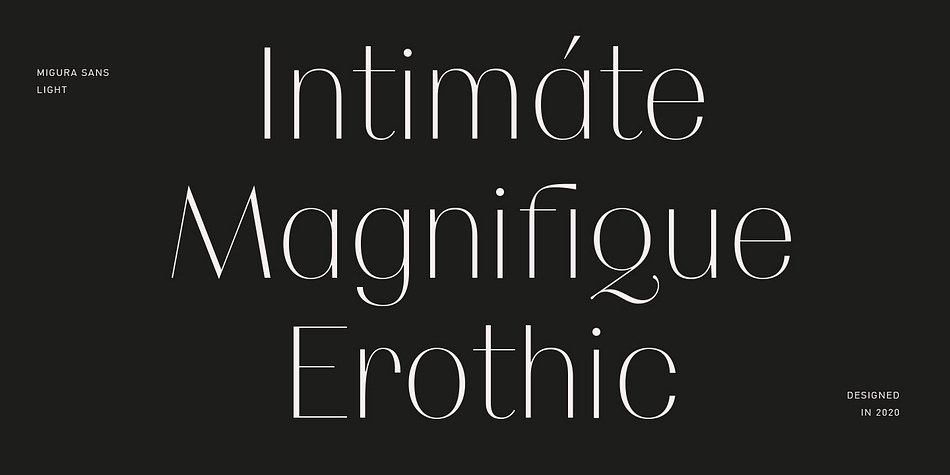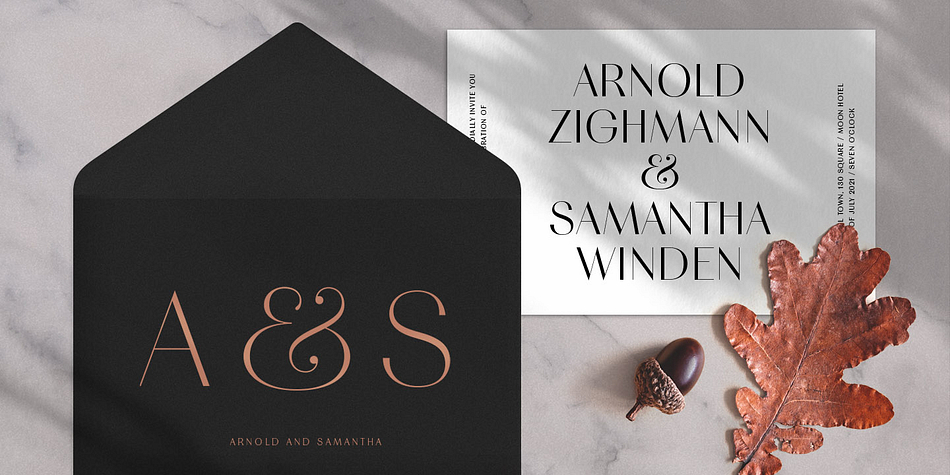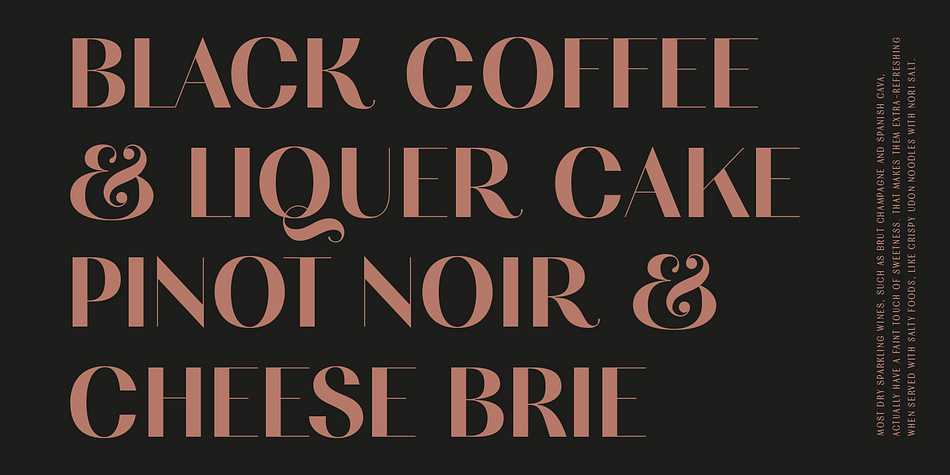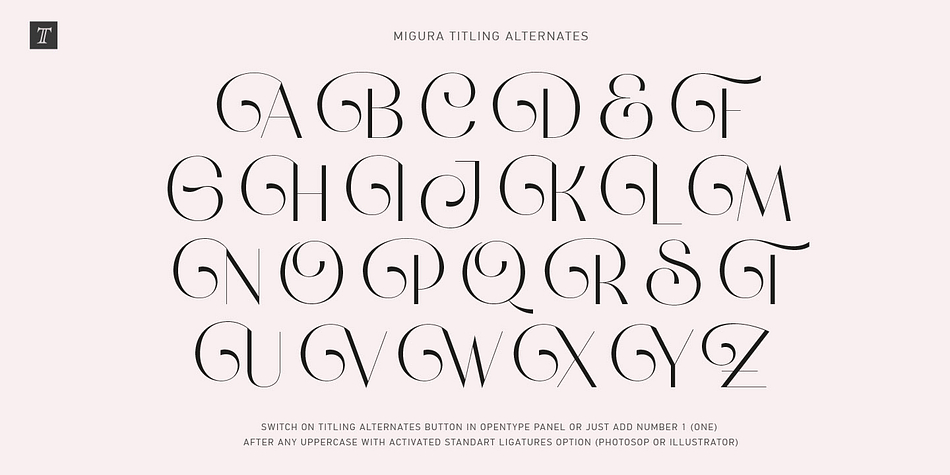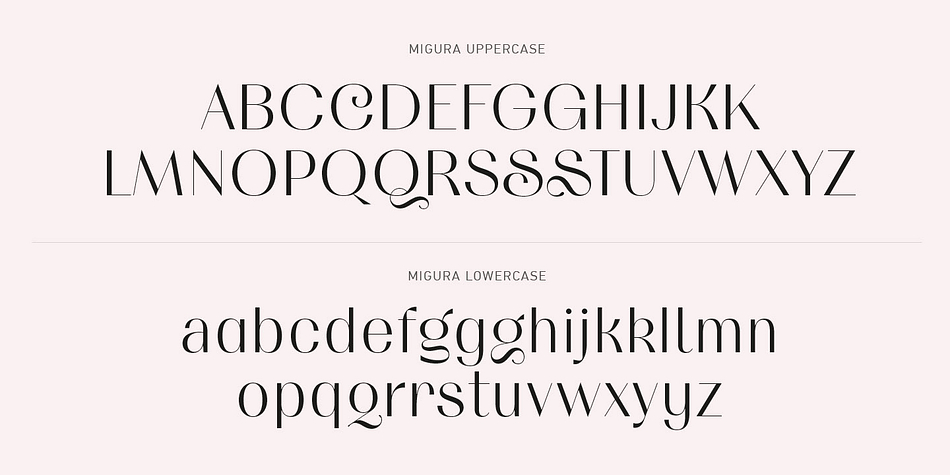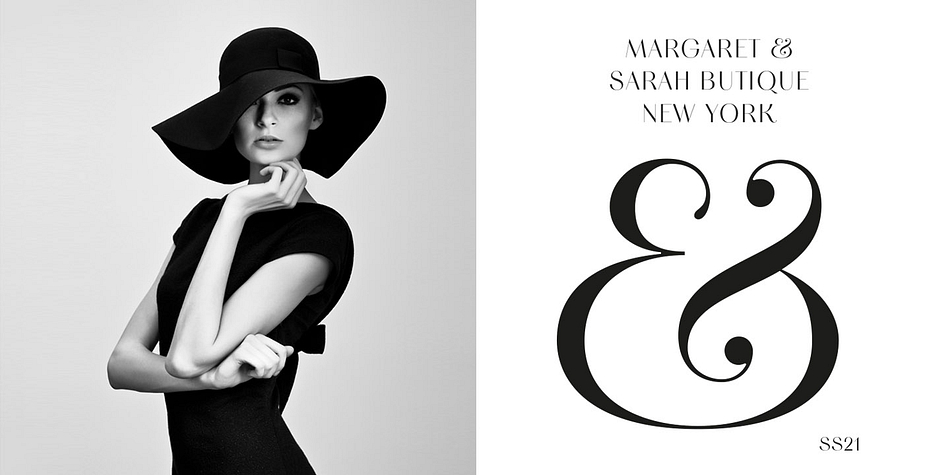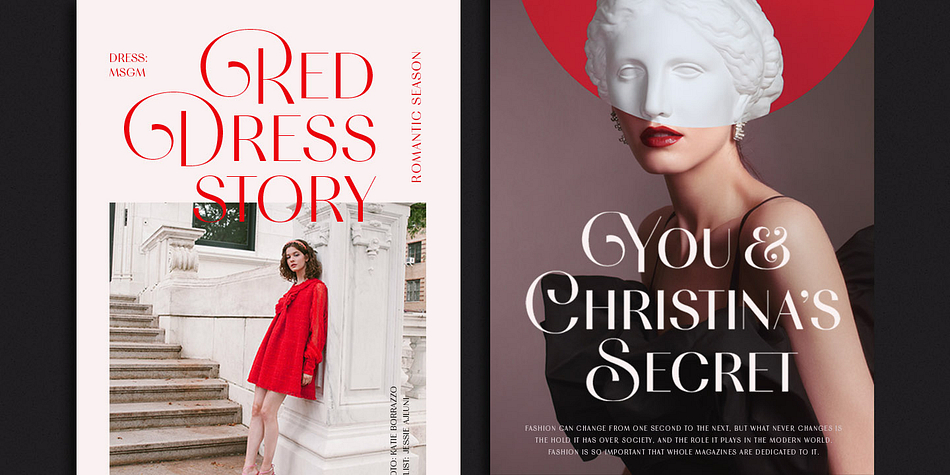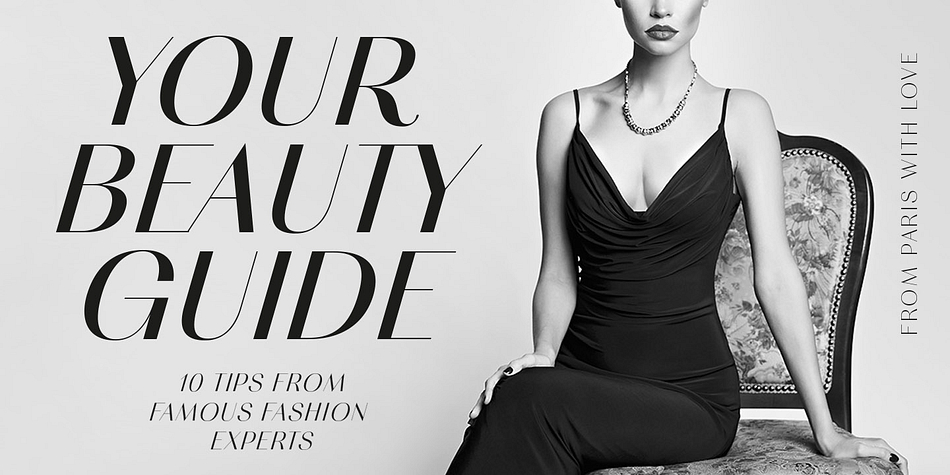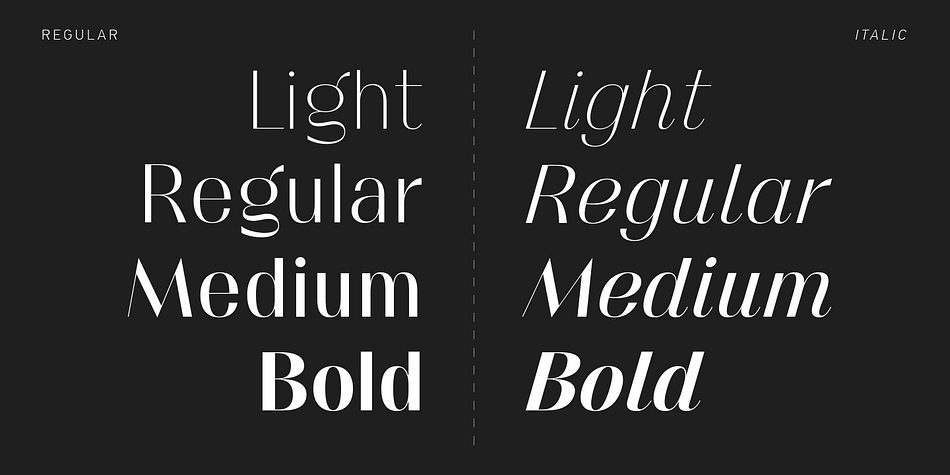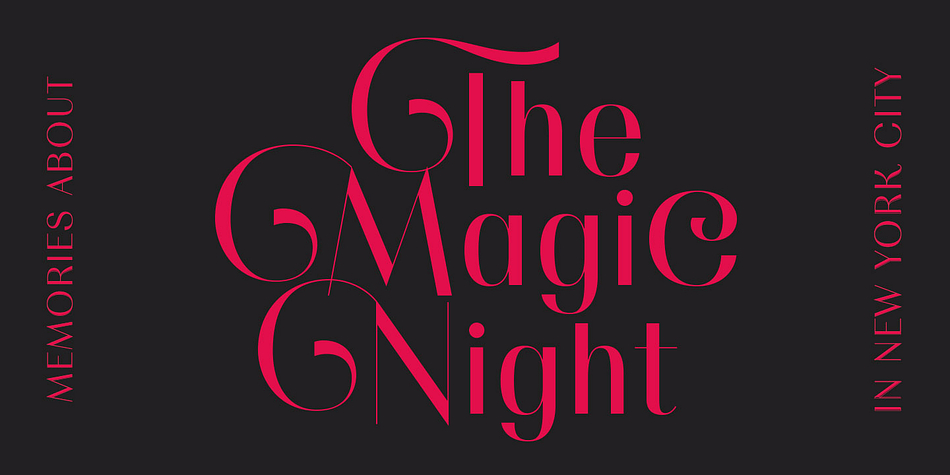
Migura Sans is a sans serif font family. This typeface has eight styles and was published by Aurora Type Co.
Migura is a high contrast Sans Serif family inspired by fashion and beauty world. Geometrically clean letterforms give elegant and luxury look when creating designs. There is different font styles from Light to Bold (+Italic version) what give enable wide use. In addition, Migura has several alternative characters, ligatures and more decorative Titling Alternates.
You can see many examples how this font can be used. Migura is very good looking in Big Tittles, Magazine design, Branding, Logotypes, Posters, Wedding invitations, romantic cards and others.
Migura support Western European characters and works with following languages: Danish, Dutch, English, Estonian, Faroese, Finnish, French, German, Hungarian, Icelandic, Italian, Norwegian, Polish, Portuguese, Slovene, Spanish, Swedish, Turkish.